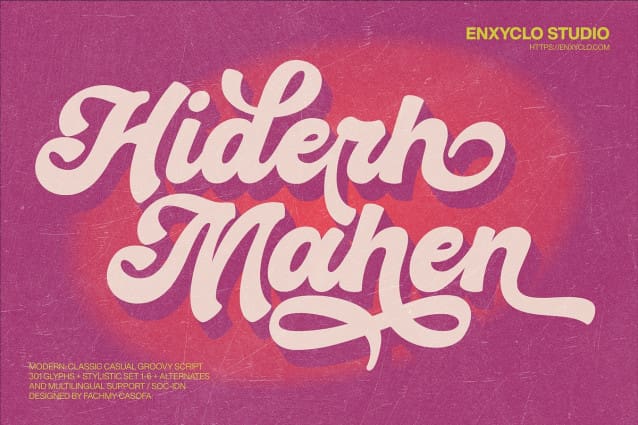
Hiderh Mahen Font
Hiderh Mahen Font is a modern classic casual groovy retro script. This typeface embodies a classic and nostalgic feel while incorporating modern elements. With its bold and elegant curves also unique variations, this font is perfectly suited for any creative project. It was purposely crafted to be used in large point sizes, although it doesn’t lose its magic in small point sizes. It is perfect for headline, digital ads, magazines, website, poster, branding, and logos. No matter the topic, this font will be an incredible asset to your fonts’ library, as it has the potential to elevate any creation. With this beautiful font, absolutely you can make your project stand out from the rest.